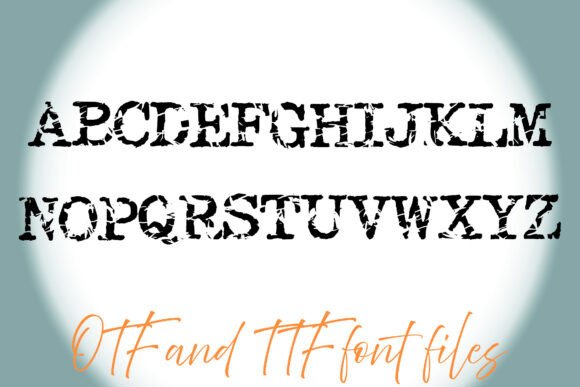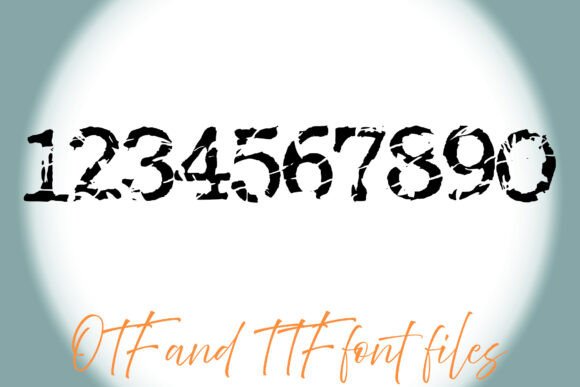
Introduction to Broken Typewriter Font
Broken Typewriter is a distressed and weathered serif font inspired by the gritty, nostalgic feel of old typing machines.
Each character features chipped edges and erratic texture, perfect for projects needing a raw, vintage touchโ€”ideal for posters, underground zines, historical themes, or horror titles This font embodies the imperfect charm of analog eras.
Key Features of Broken Typewriter Font